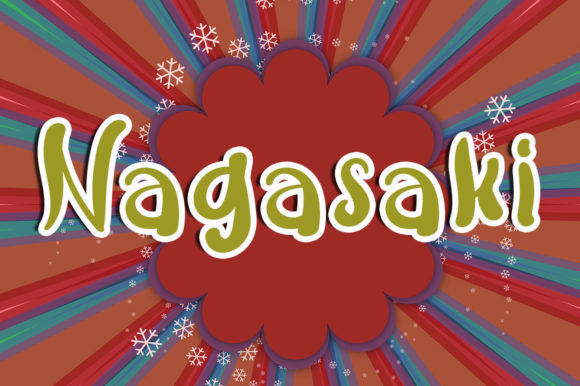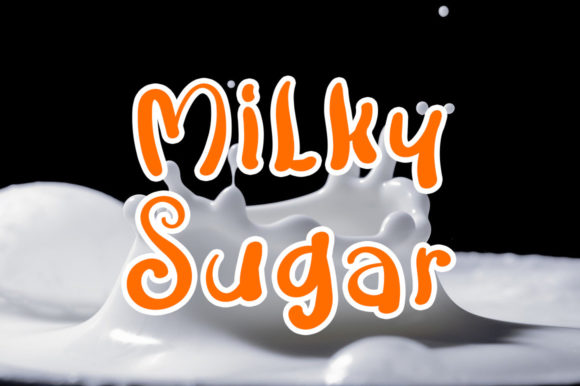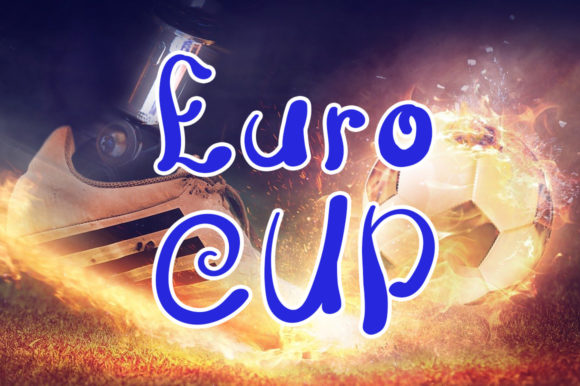
Culture Font: The Sweet and Quirky Handwritten Font You Need
Are you a designer or crafter looking for a unique and playful font to add to your collection? Look no further than Culture Font! This sweet and quirky handwritten font is sure to bring a friendly and approachable vibe to any project. In this article, we’ll dive into the details of Culture Font, exploring its characteristics, uses, and benefits.
What is Culture Font?
Culture Font is a handwritten font designed with a playful and whimsical feel in mind. Its slightly chunky characters give it a charming, informal look that’s perfect for a wide range of creative projects. Whether you’re working on a branding campaign, a craft project, or simply want to add some personality to your digital content, Culture Font is an excellent choice.
Key Characteristics of Culture Font
- Handwritten style: Culture Font boasts a genuine, handwritten look that’s both friendly and approachable.
- Slightly chunky characters: The font’s chunky characters add a playful touch, making it perfect for projects that require a bit of whimsy.
- Playful vibe: Culture Font’s overall feel is lighthearted and fun, making it an excellent choice for projects that require a bit of personality.
Uses for Culture Font
Culture Font’s versatility makes it suitable for a wide range of projects, including:
- Branding and logos: Add a touch of personality to your brand with Culture Font’s unique and playful style.
- Crafting and DIY projects: Culture Font is perfect for crafters who want to add a personal touch to their projects, such as handmade cards, gift tags, and more.
- Digital content: Use Culture Font to add a bit of whimsy to your blog posts, social media graphics, and other digital content.
- Wedding and event planning: Culture Font’s playful style makes it an excellent choice for wedding invitations, party decorations, and other event materials.
Benefits of Using Culture Font
So why choose Culture Font for your next project? Here are just a few benefits:
- Unique and eye-catching: Culture Font’s playful style is sure to grab attention and make your project stand out.
- Easy to read: Despite its chunky characters, Culture Font is surprisingly easy to read, making it perfect for body text and other written content.
- Versatile: Culture Font can be used in a wide range of projects, from digital content to print materials.
- Fun and playful: Culture Font’s friendly vibe is sure to bring a smile to your audience’s faces, making it perfect for projects that require a bit of personality.
Tips for Using Culture Font
To get the most out of Culture Font, here are a few tips to keep in mind:
- Pair with contrasting fonts: Culture Font’s playful style works well when paired with more formal or serif fonts.
- Experiment with colors: Culture Font looks great in a variety of colors, so don’t be afraid to get creative and try out different hues.
- Use it sparingly: While Culture Font is perfect for adding a touch of personality to your project, it’s best used sparingly to avoid overwhelming the design.
Culture Font is a sweet and quirky handwritten font that’s sure to bring a friendly and playful vibe to any project. With its slightly chunky characters and whimsical feel, it’s perfect for designers and crafters who want to add a bit of personality to their work. Whether you’re working on a branding campaign, a craft project, or simply want to add some whimsy to your digital content, Culture Font is an excellent choice. So why not give it a try and see how it can elevate your next project?